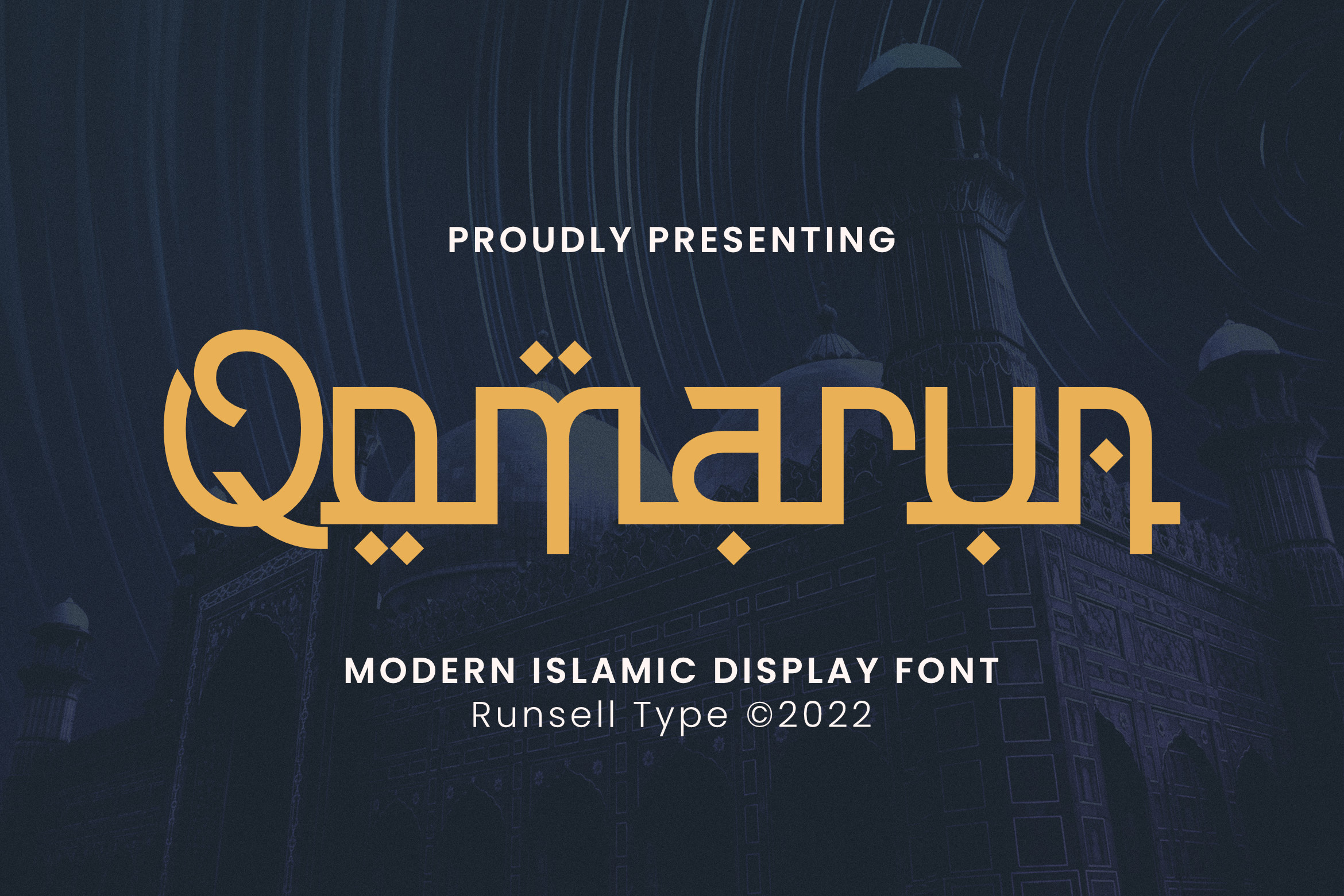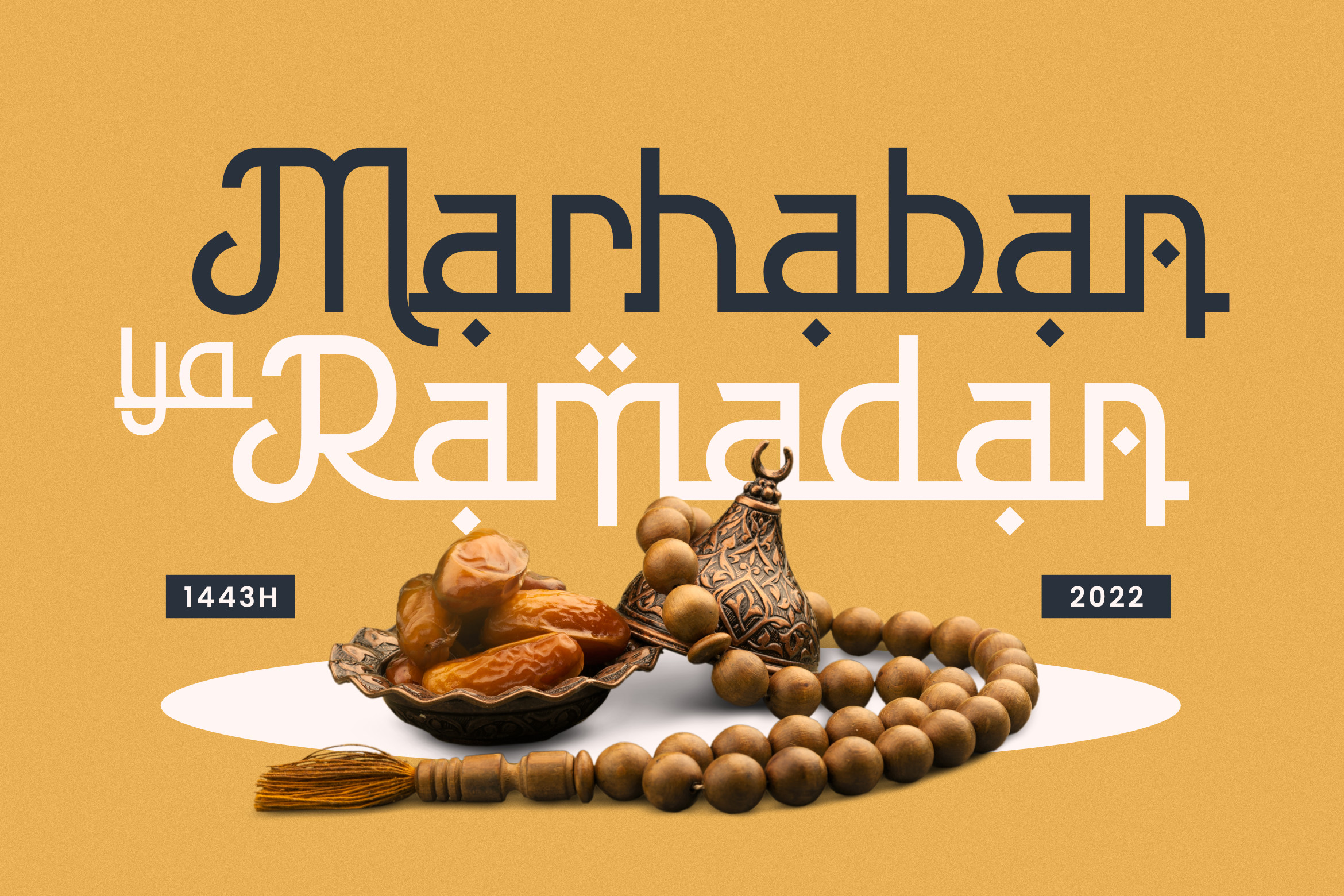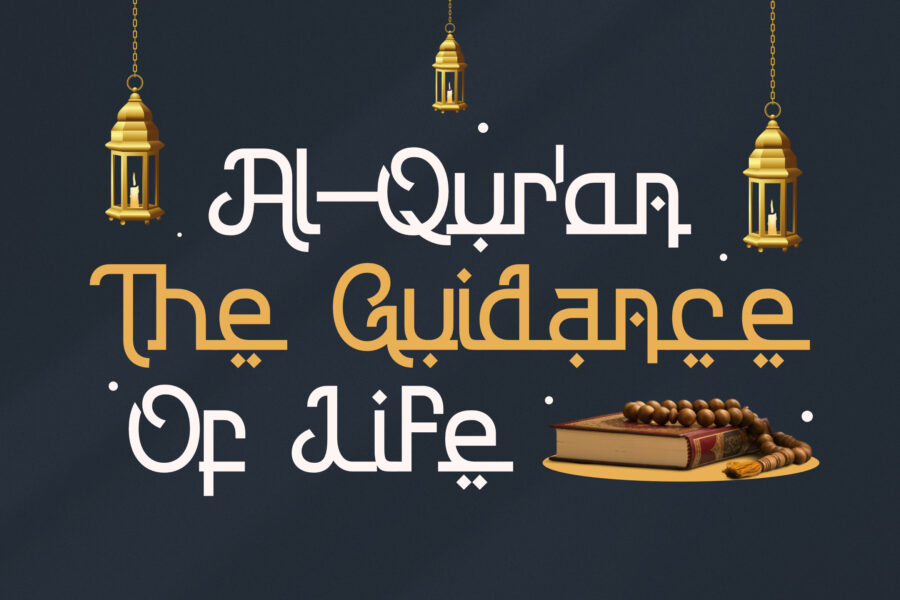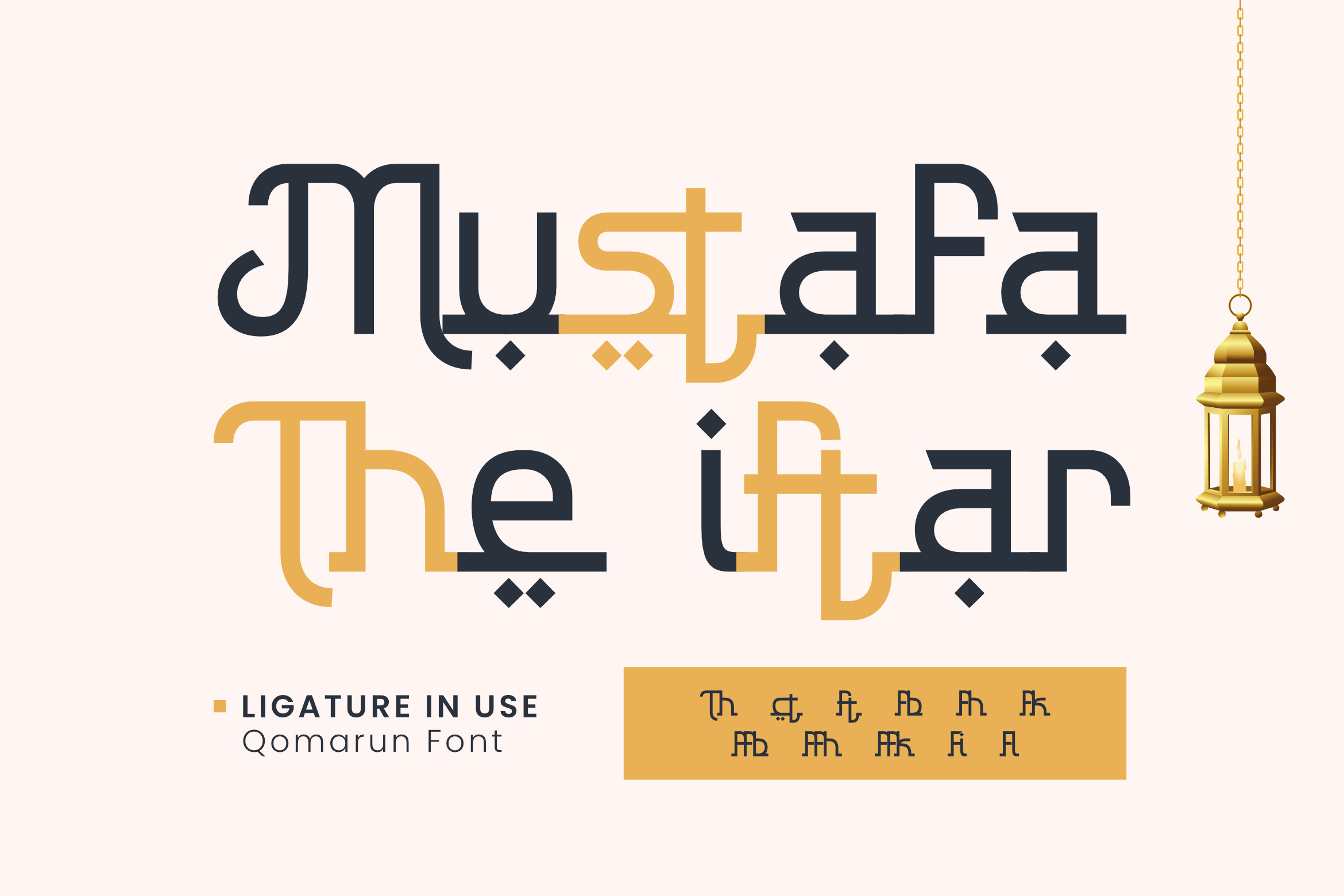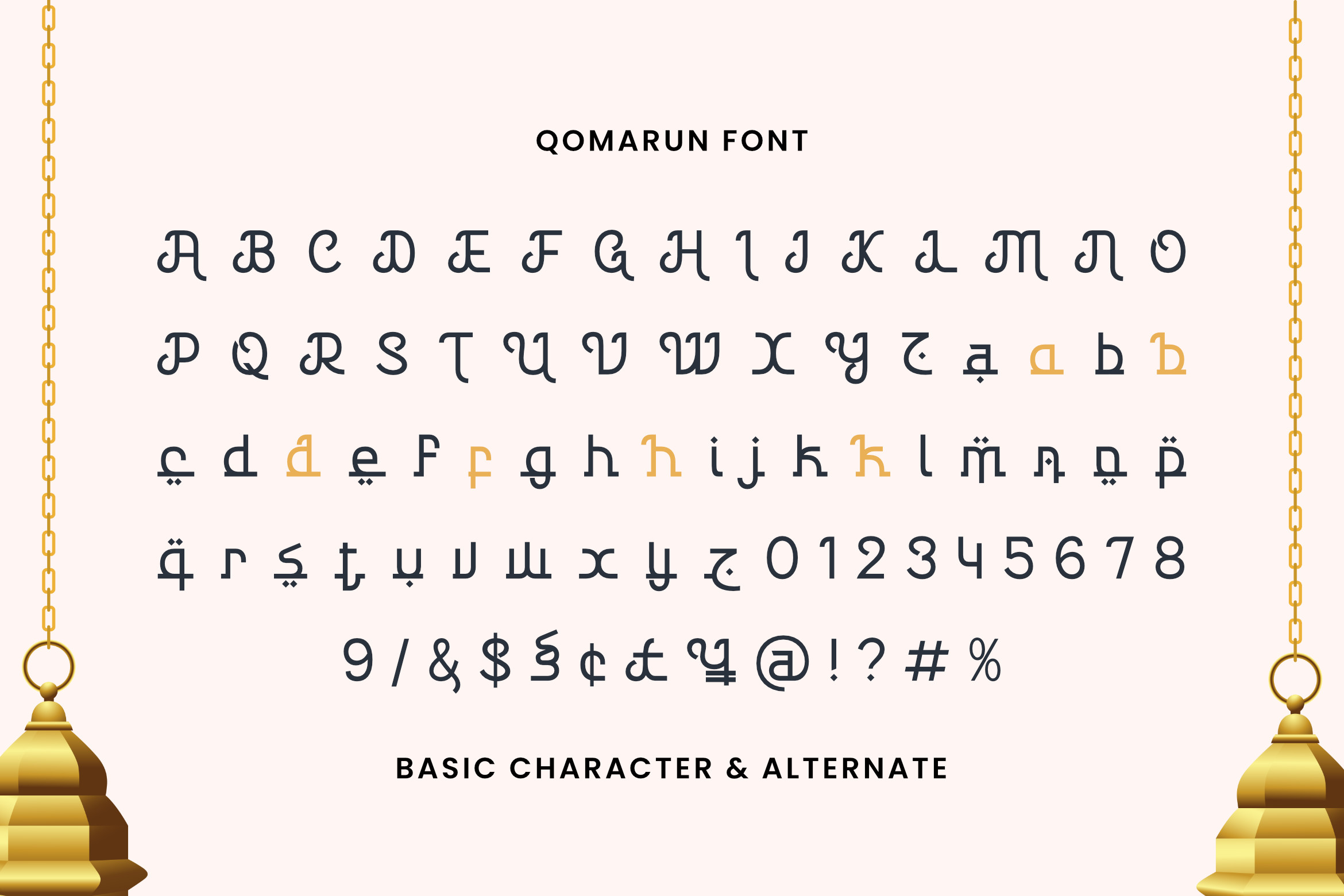
Qomarun is a modern Islamic display font that blends Latin letterforms with Arabic-inspired geometry. Designed with symmetrical elegance and ornamental ligatures, Qomarun brings a unique Middle Eastern visual tone to your headlines, packaging, or festive campaigns. Each glyph has been carefully constructed to mimic the rhythm of traditional calligraphy while maintaining the clarity of a contemporary sans serif.
This font includes alternates, contextual ligatures, and stylized accents that make it ideal for Ramadan posters, Eid greeting cards, Islamic branding, and editorial layouts. Whether used for religious expressions or commercial projects with a cultural twist, Qomarun delivers a powerful, reverent aesthetic with modern flair.
Qomarun